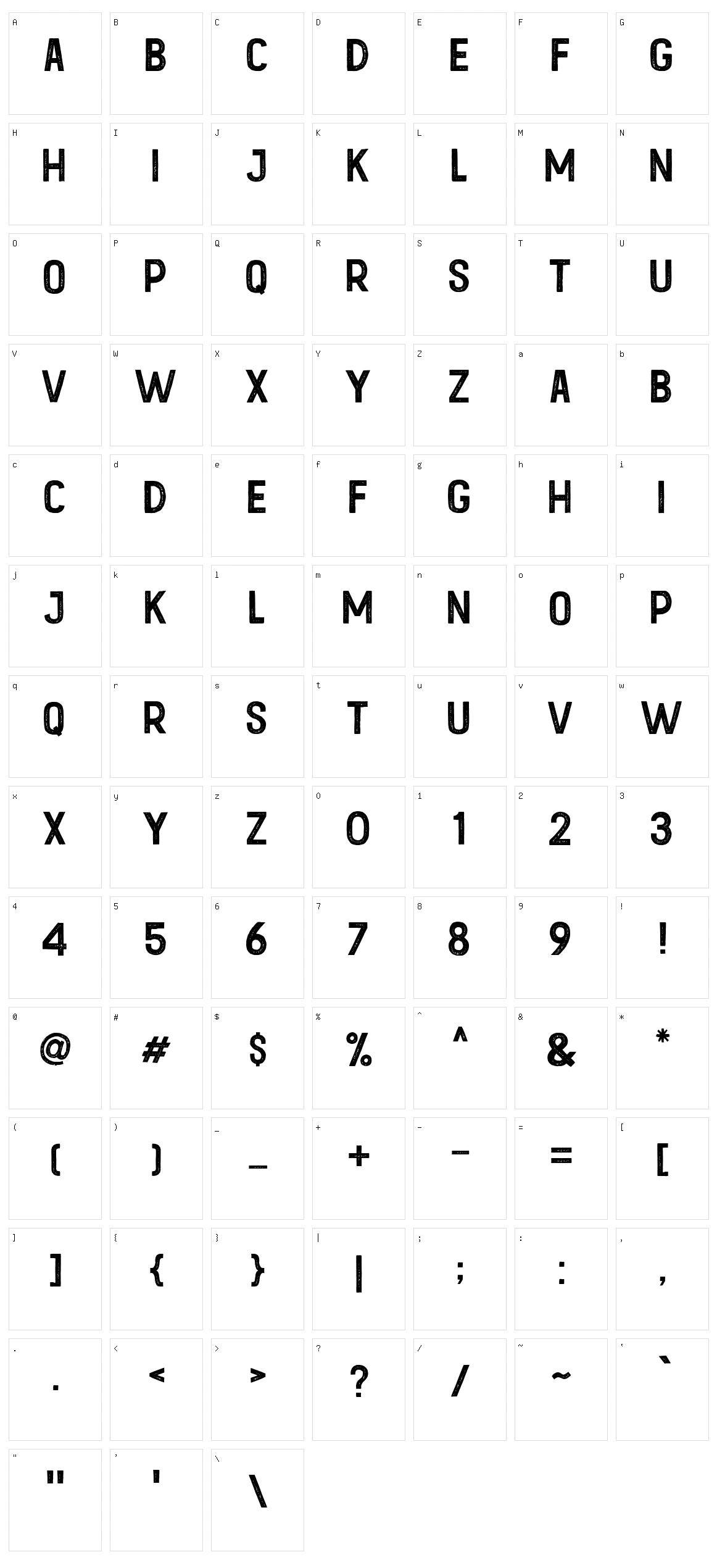
The free font Kustom Culture is carefully designed by Scratch Design, showcasing a thoughtful balance of creativity and usability and falls under the Eroded font style. When you download the ZIP file, it contains only 226.46 KB of font files, making it lightweight and quick to download. Please review the license details below to understand permitted usage and distribution rights. If license information is not available, we recommend using this font for personal projects only or contacting the author directly for commercial usage permissions.